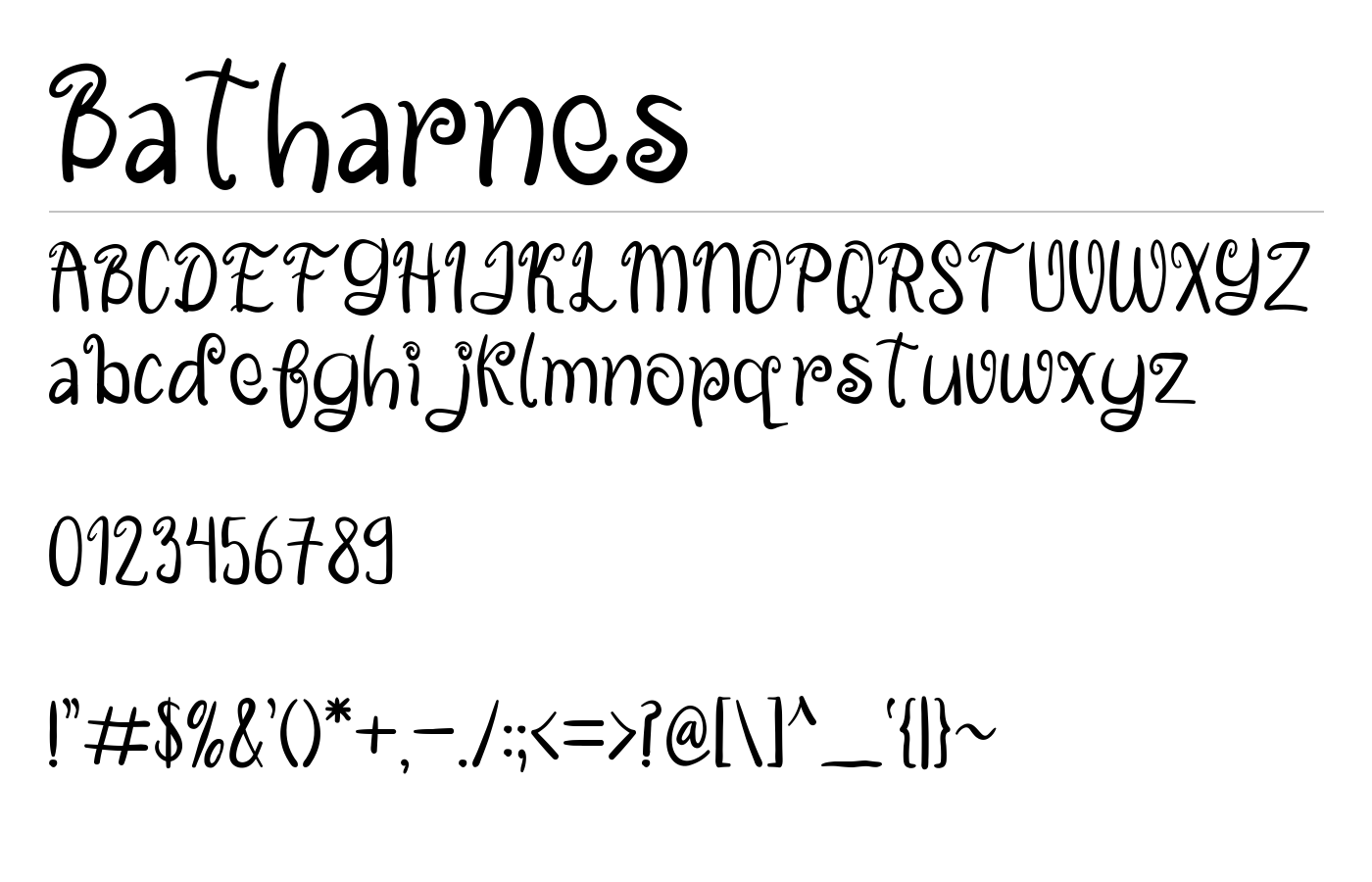
Batharnes is a playful, handwritten-style font that brings a whimsical and casual feel to any design. Its tall, slightly irregular letterforms with curly and quirky details create an inviting and friendly personality, making it ideal for creative projects, informal branding, or children’s materials. This font works best in headlines, logos, and packaging where a fun, approachable tone is desired.
Batharnes Font